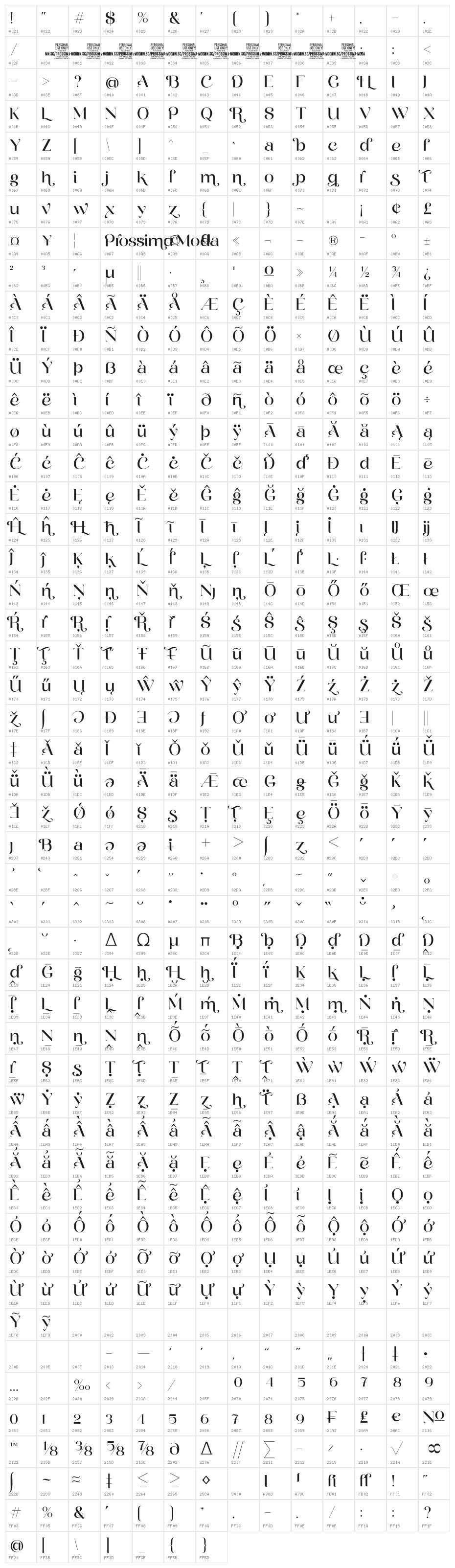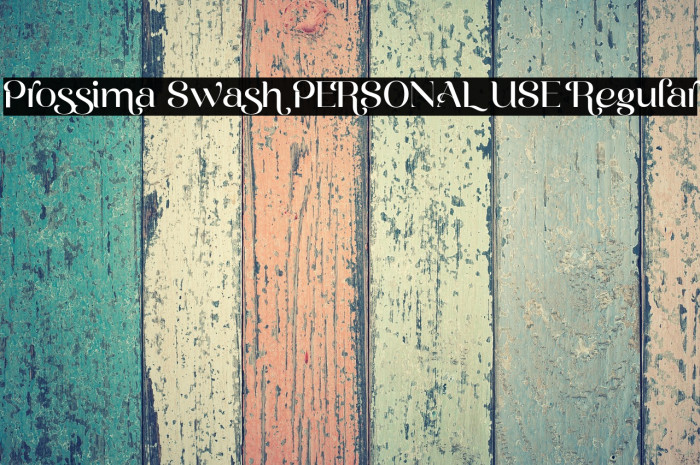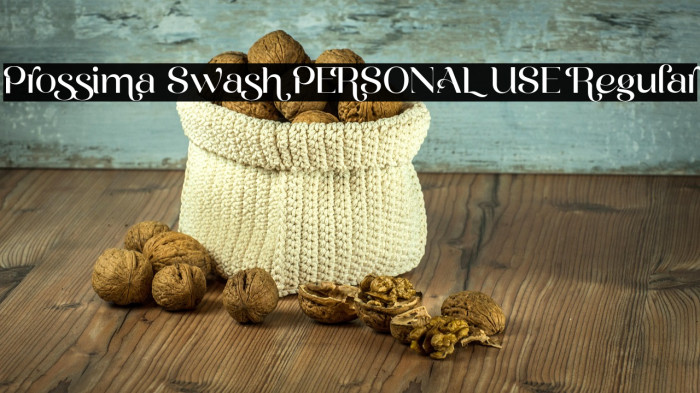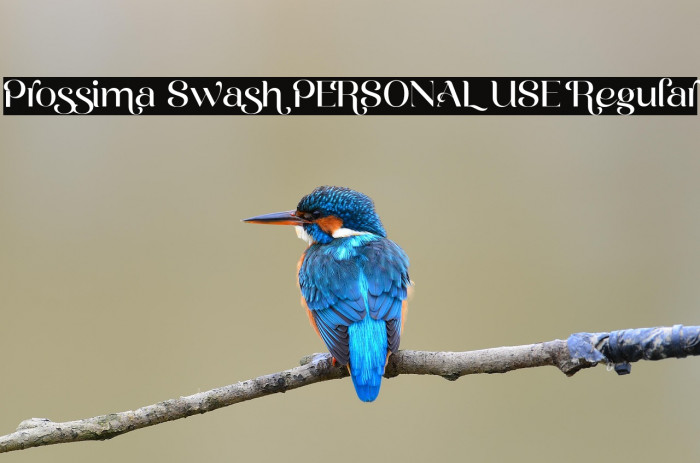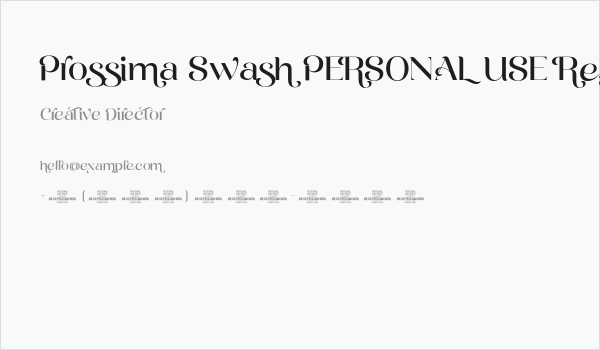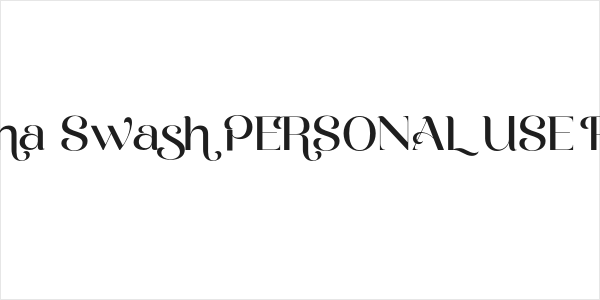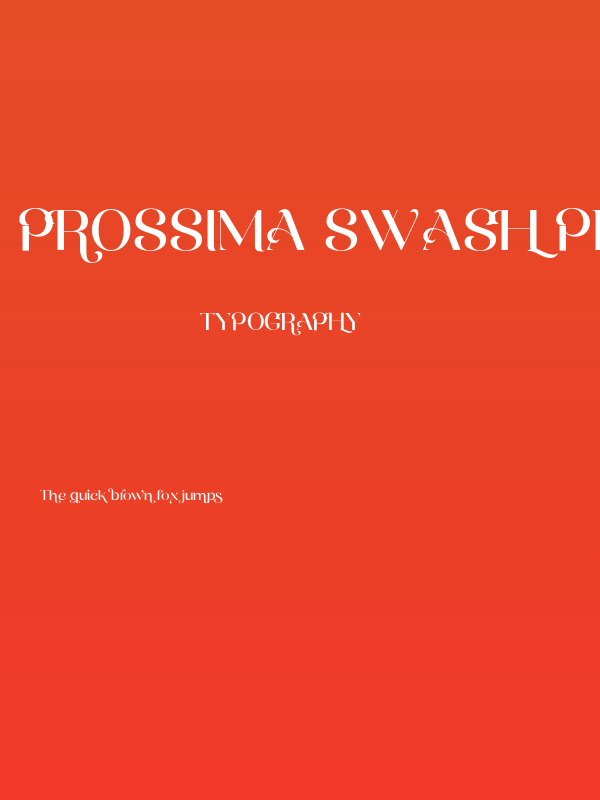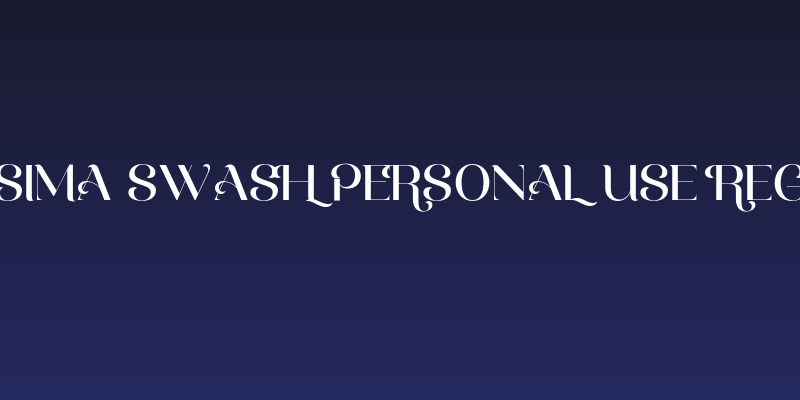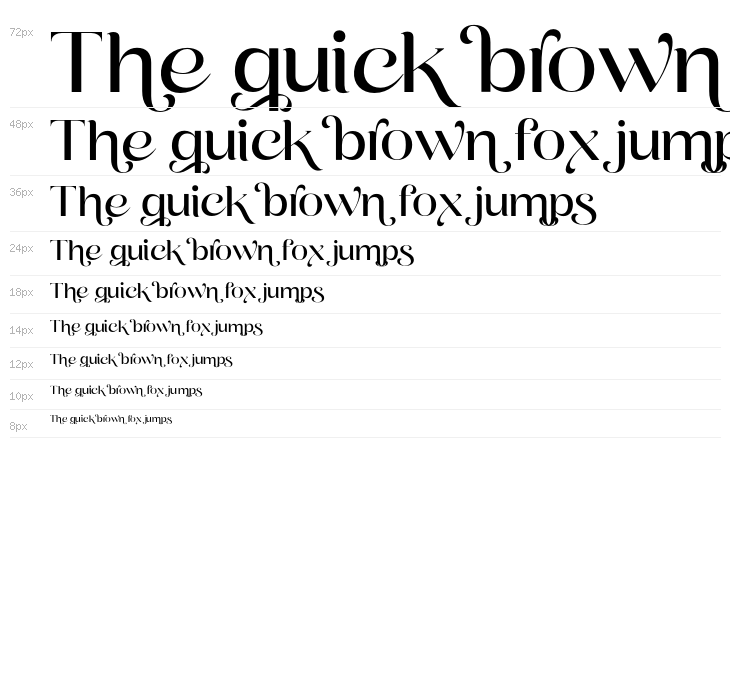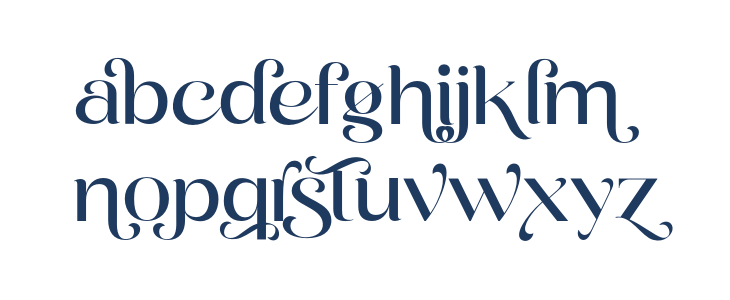
Prossima Swash PERSONAL USE Regular Font
Prossima Swash PERSONAL USE Regular Description
This font features a decorative and elegant style with a modern twist. The uppercase letters are characterized by bold strokes and intricate swashes that add a sense of flair and sophistication. The lowercase letters maintain a consistent design, with some characters featuring unique loops and curls that enhance the font's ornamental quality. The numerals and special characters are designed to match the overall aesthetic, providing a cohesive look. The font's high contrast between thick and thin strokes gives it a dynamic appearance, making it suitable for attention-grabbing headlines and artistic designs.
| Use Case | Headlines, Logos, Artistic Designs |
| Proposed Projects | Ideal for wedding invitations, luxury branding, artistic posters, and elegant packaging designs. |